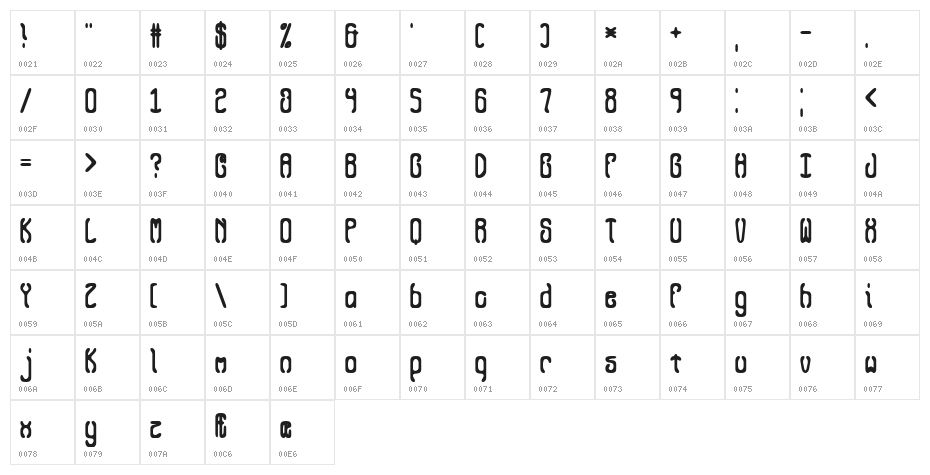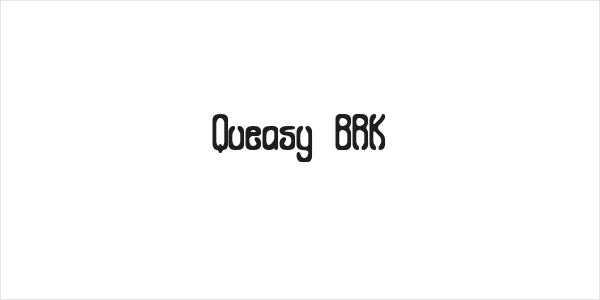
Queasy BRK Font
Queasy BRK Description
This font features a bold and playful design with rounded edges and a slightly condensed form. The characters have a unique, almost bubbly appearance, giving them a distinctive and eye-catching look. The uppercase and lowercase letters maintain a consistent style, with the lowercase letters mirroring the playful curves of the uppercase. Numbers and special characters follow the same design principles, ensuring uniformity across all glyphs. The font's thick strokes and rounded terminals contribute to its friendly and approachable aesthetic, making it suitable for creative and informal applications.
| Overall Style | Playful, Modern |
| Proposed Projects | Ideal for children's books, playful branding, posters, and creative digital content. |